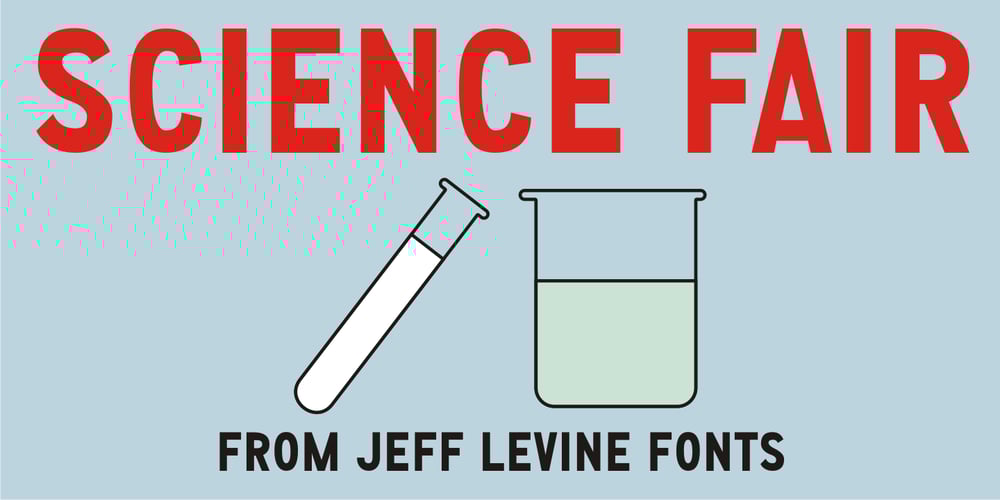
Science Fair JNL Font Family was designed by Jeff Levine and published by Jeff Levine. Science Fair JNL contains 1 styles and family package options. Science Fair JNL emulates the effect of connecting the broken lines of a stencil alphabet into a solid letter form, such as many students did for posters on their science project. In this case, the base font was Jeff Levine’s Paramilitary JNL.